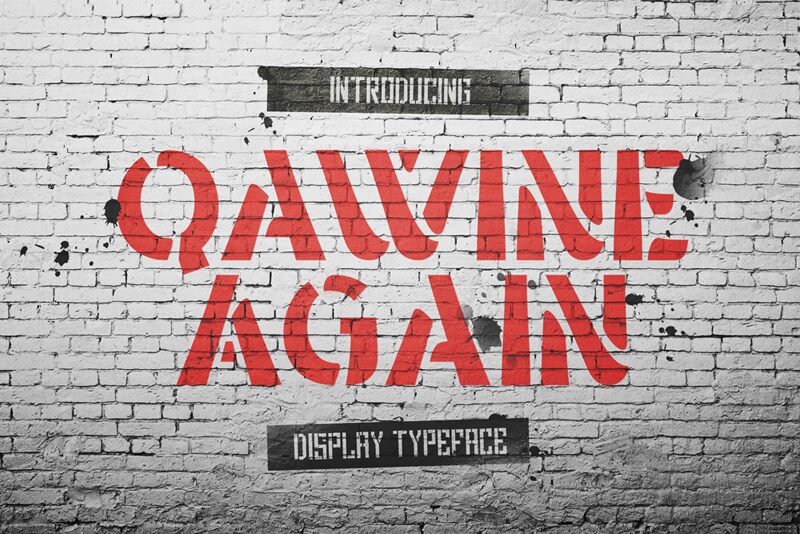
Qawine Again, designed by Alit Design, is a striking display font that commands attention with its military-inspired stencil style. With its bold and strong letterforms, this font is perfect for projects that require a commanding presence.
Use it to create eye-catching posters for action-packed movies, intense video game titles, or even impactful military-themed branding. Its unique stencil design adds an edgy and contemporary touch to any project, making Qawine Again a versatile choice for designers looking to make a bold statement.